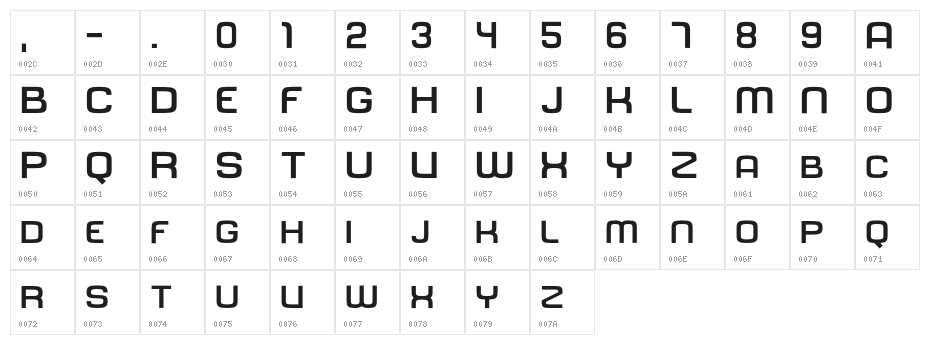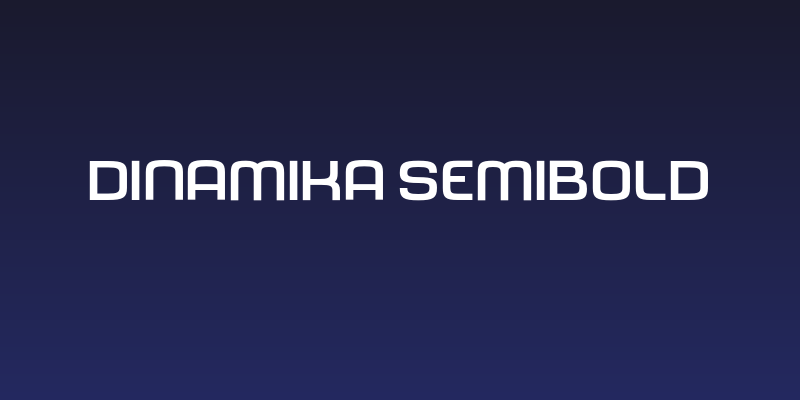
Dinamika Semibold Font
Dinamika Semibold Description
This font exhibits a modern and sleek design with a geometric structure. The characters are bold and feature a uniform stroke width, giving them a strong and impactful appearance. The uppercase letters are distinct with rounded edges, while the lowercase letters maintain a consistent style, ensuring readability. The numerals are clear and well-defined, complementing the overall aesthetic. The font lacks special characters, focusing on a clean and straightforward presentation. Its design is suitable for contemporary projects that require a bold statement.
Proposed ProjectsIdeal for branding, advertising, and digital media projects that require a modern and bold typeface.